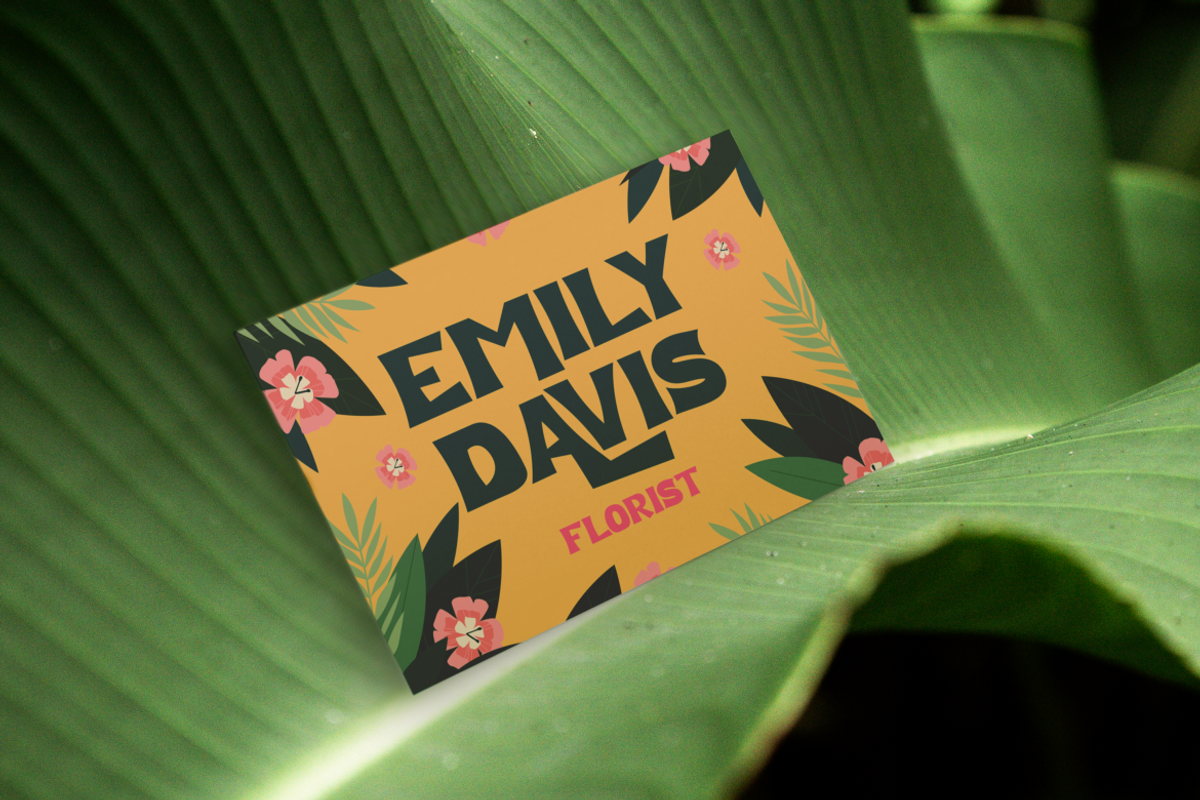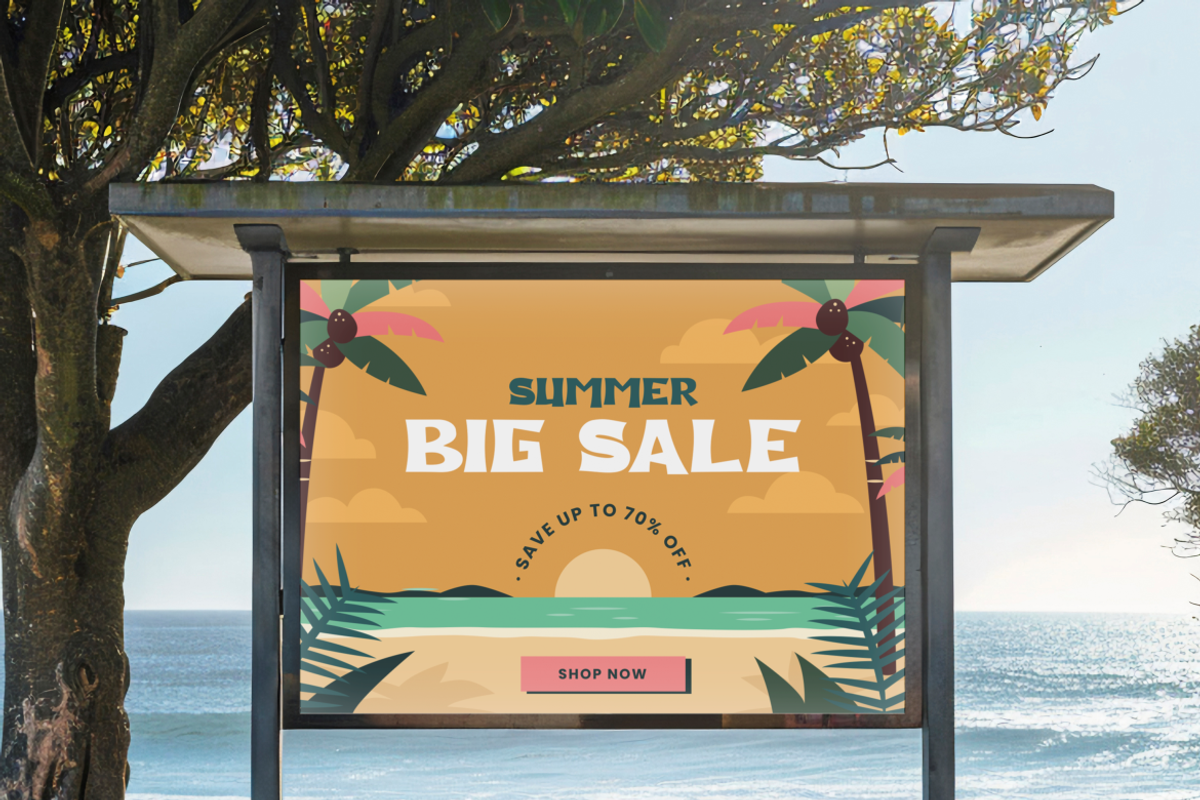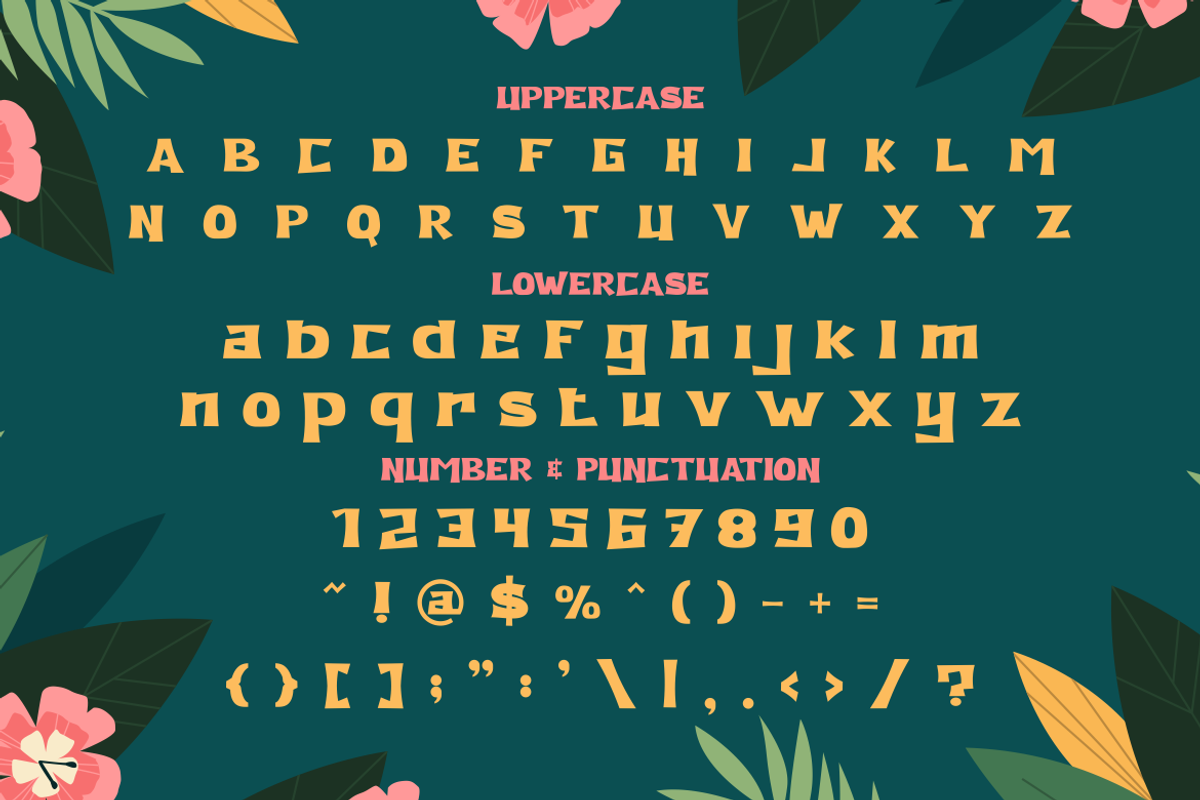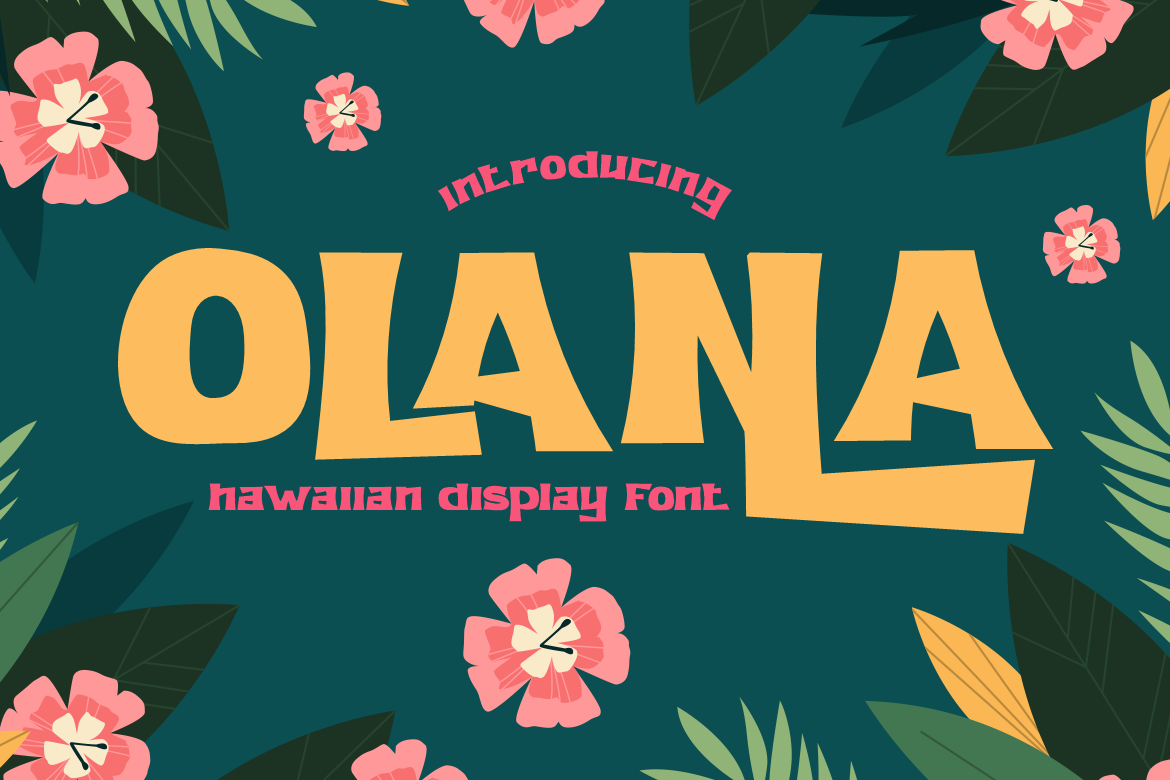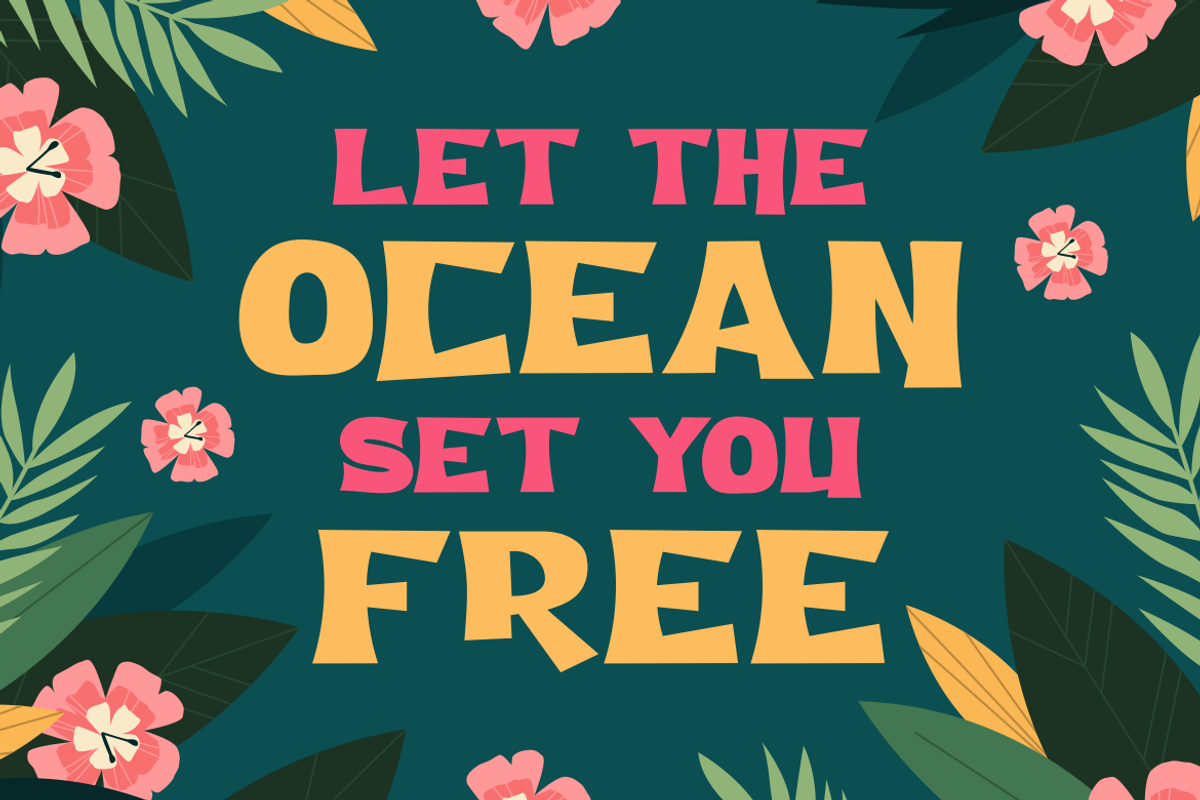
Olana Hawaiian Font
Olana Hawai Font is a bold and energetic display typeface inspired by the warmth and vibrancy of tropical island life. Its letterforms are wide and slightly uneven, creating a natural hand-cut look that feels both casual and confident. The strong geometric base gives it structure, while the playful angles and curves add personality and rhythm. Each letter has a distinct balance between boldness and smoothness, making it ideal for attention-grabbing titles without losing its friendly charm. Olana Hawai Font brings the carefree spirit of summer to any design, capturing the essence of joy, sun, and ocean breeze in its visual rhythm.
Perfect for branding, posters, packaging, invitations, and advertising materials, this font instantly conveys a fun and tropical vibe. It’s an excellent choice for beach-themed businesses, summer events, surf brands, or travel promotions that need a touch of coastal flair. Olana Hawai Font also works beautifully in logos, magazine covers, or bold headlines that require both personality and readability. Its unique shapes bring warmth and positivity, making it ideal for creative designers who want their work to stand out with a touch of the islands.